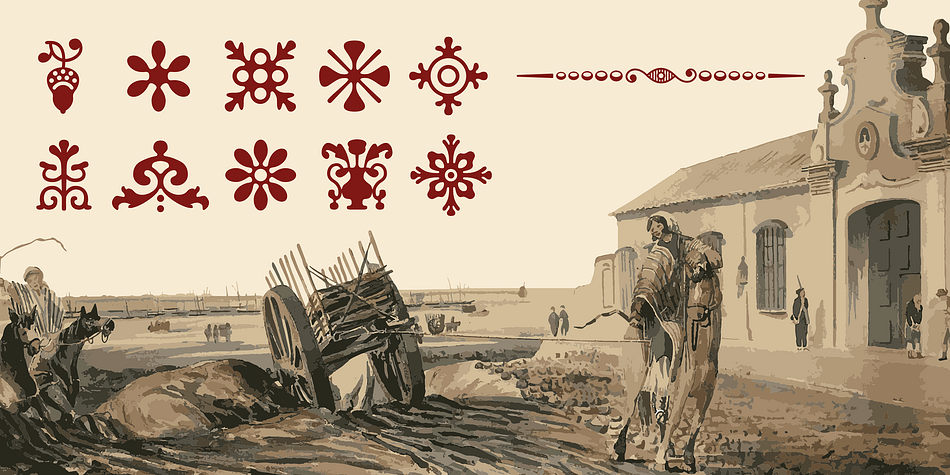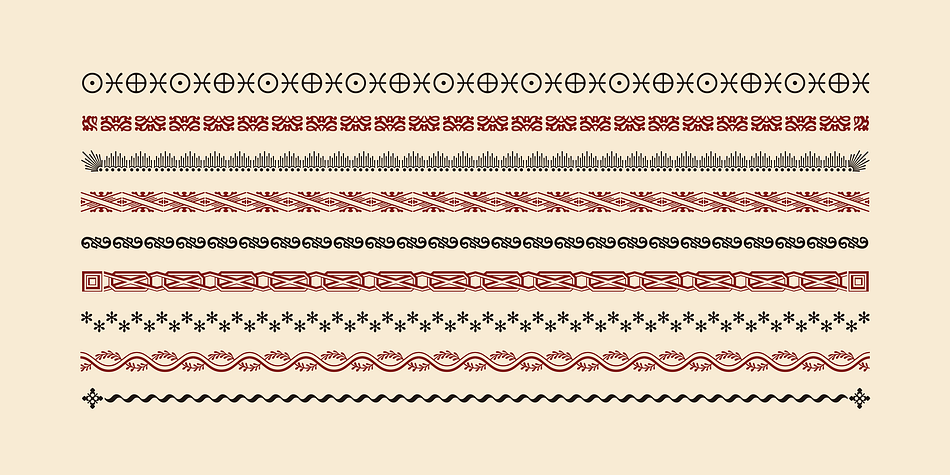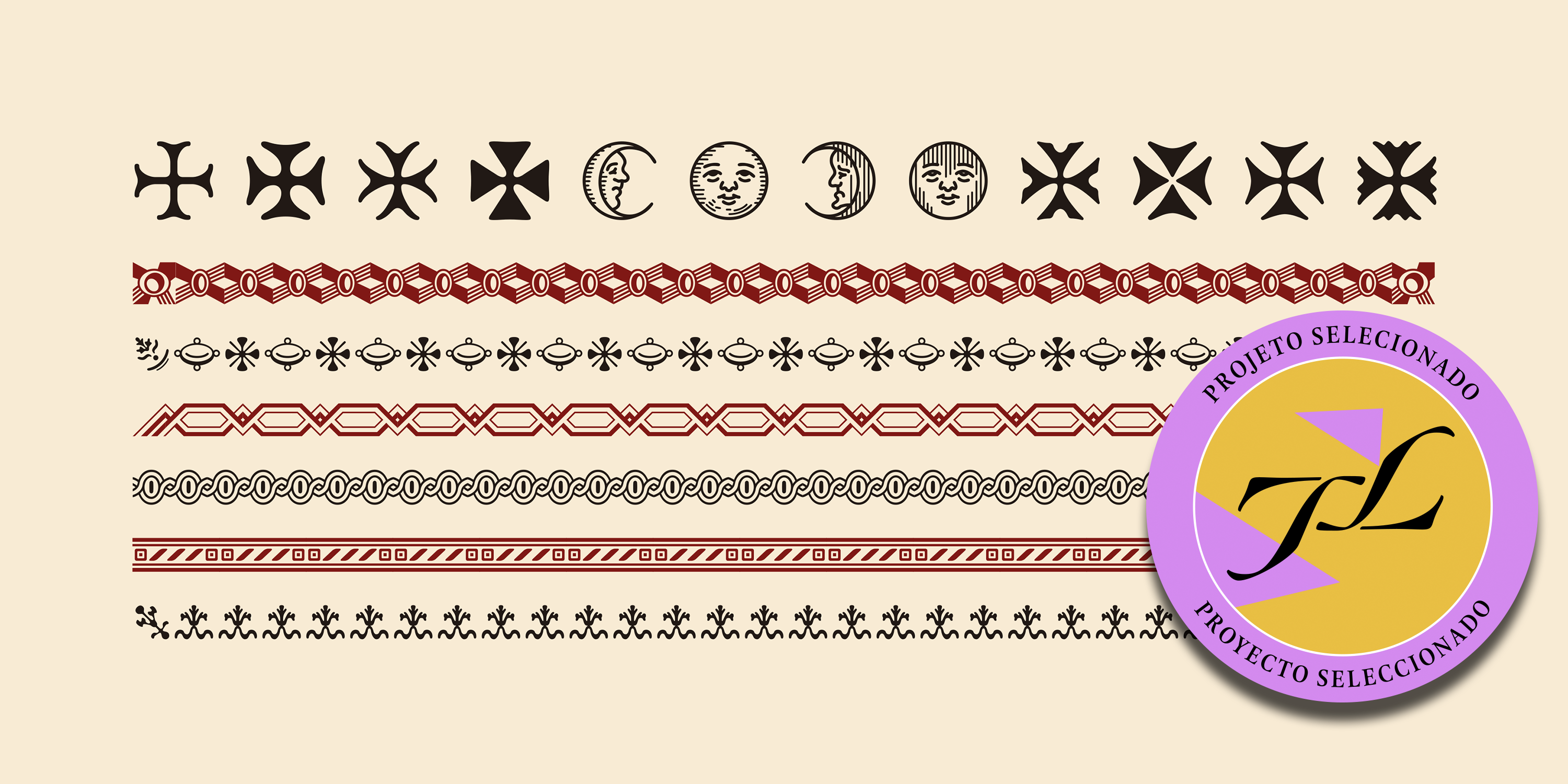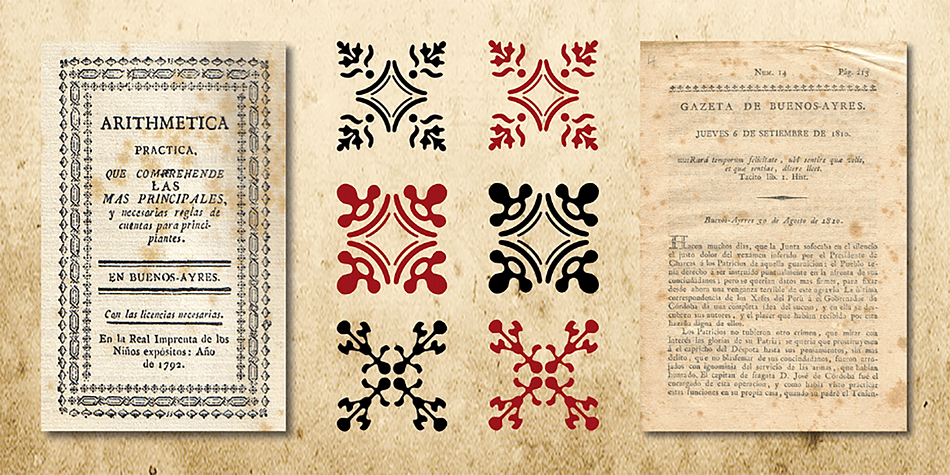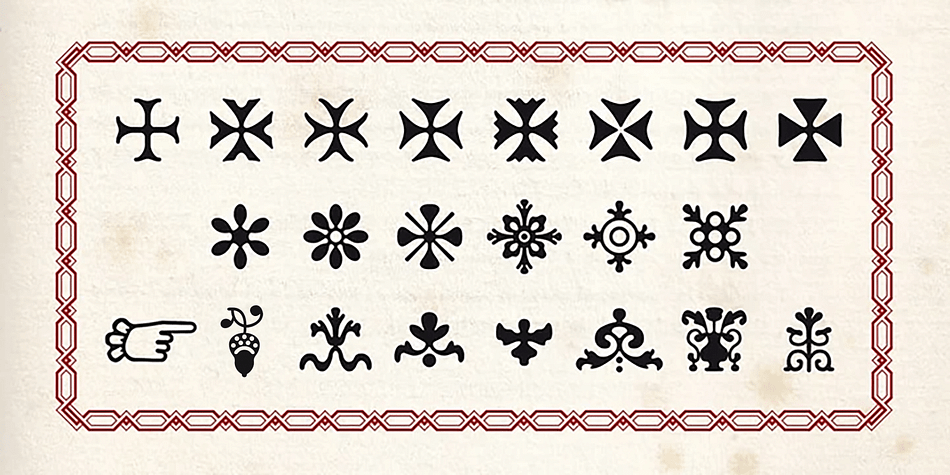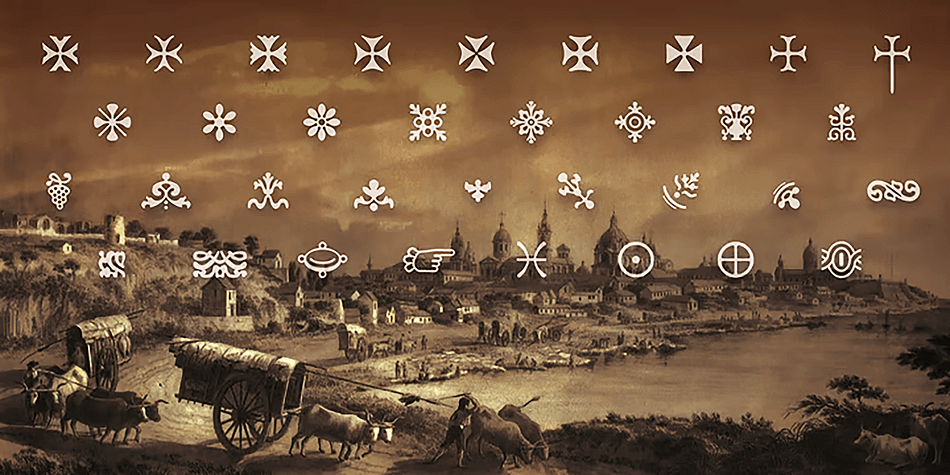
Garrigos Ornamentos
Designed by Fabio Ares, Garrigos Ornamentos is a dingbat font family published by Fabio Ares.
Set of ornaments based on the decorative motifs used by the first typographic workshop in Buenos Aires: “Imprenta de Niños Expósitos”, between 1780 and 1824. This set is the product of an extensive historical research that aims to identify the type that came from Europe to the City during colonial times, and during the first years of Argentina’s independence. This group has a lot of diversity, which fluctuates between organic baroque forms and geometric neoclassical. Its characters can be used in editorial design along with Roman typefaces, they work individually or grouped to form different figures, guards or frames. It was baptized in honor to the first printer who worked in the workshop: the Spanish Agustín Garrigós. It was originally published by the Underground foundry in 2016 and expanded in 2022 with new finds in old prints from the Expósitos Press. It was selected for the 9th. edition of the Latin American Biennial “Tipos Latinos”.